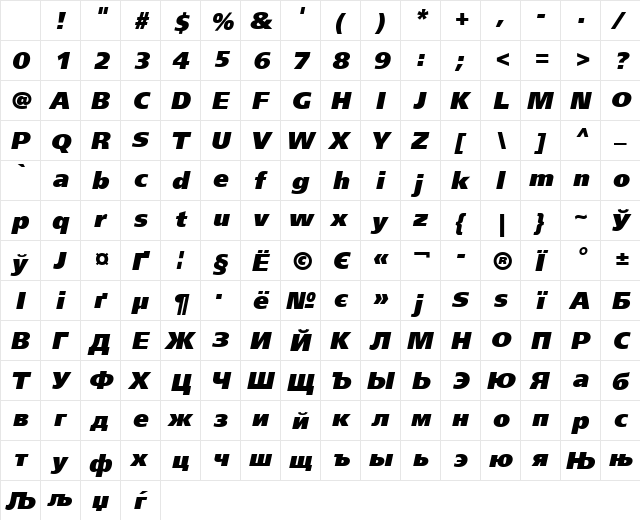
Complete FreeSetBlackC Italic glyph index. Displaying only characters natively supported by FreeSetBlackC Italic font.
FreeSetBlackC is a composed and adaptable typeface that performs quietly and consistently across a wide range of design contexts. The slanted form adds forward momentum and visual energy.
Pro Tip: Use FreeSetBlackC for emphasis, pull quotes, and subheadings where its slanted energy can add rhythm to the layout.